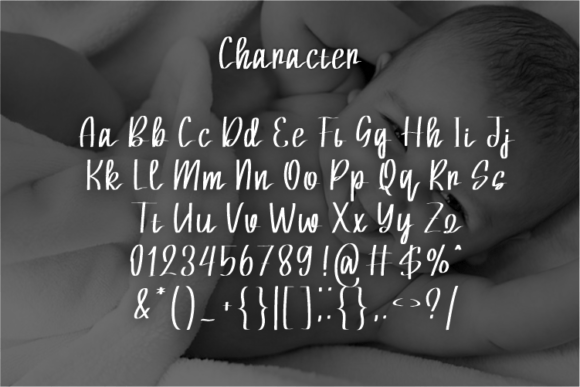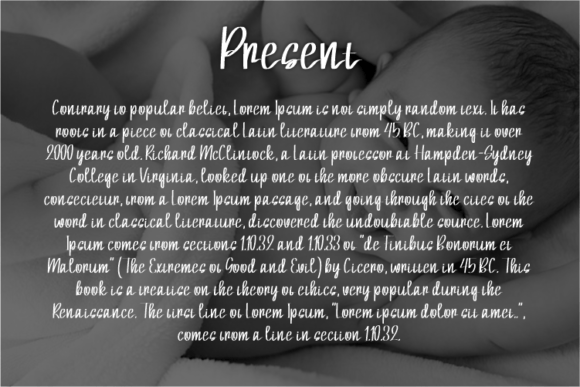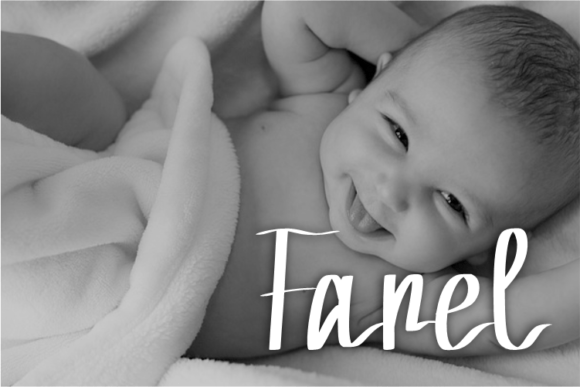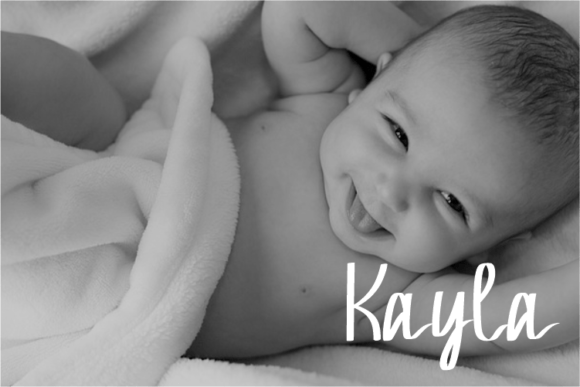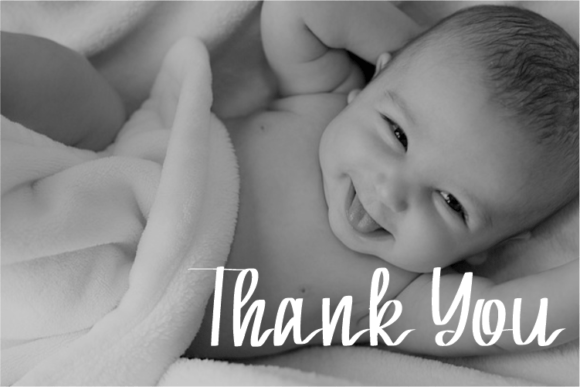
The Perfect Script: Unlocking the Charm of Baby Oh Baby Font
Have you ever found yourself stuck in front of a blank page, struggling to come up with the perfect font to convey your message? You’re not alone. As designers, we’ve all been there – searching for that elusive combination of style and sophistication that elevates our work to the next level. For me, it’s moments like these that I find myself drawn to the world of typography, where a single font can make all the difference.
Enter Baby Oh Baby Font, a script typeface that embodies the perfect blend of simplicity and modernity. With its elegant and luxurious aesthetic, this font is ideal for creating eye-catching logo designs, book and movie titles, fashion brand identities, and more. Whether you’re a seasoned designer or just starting out, Baby Oh Baby Font is a valuable addition to your toolkit, offering a level of versatility and sophistication that’s hard to find elsewhere.
Baby Oh Baby Font Key Features
• Unique Characteristic: The font features a unique, playful design with rounded edges and soft curves, making it suitable for children’s books, nursery decor, and other related applications.
Design Review: Baby Oh Baby Font
Overall, I think the Baby Oh Baby Font is a unique and eye-catching choice for designers looking to create a playful and whimsical feel in their projects. ✨ The font’s rounded edges and soft curves give it a friendly and approachable vibe that’s perfect for children’s books, nursery decor, or other projects aimed at young audiences.
One of the standout features of this font is its versatility. It comes in a range of weights and styles, making it easy to adapt to different design contexts. Whether you need a bold, attention-grabbing headline or a subtle, readable body text, Baby Oh Baby has got you covered. ✨
While Baby Oh Baby Font has many great qualities, there are some limitations to consider.
• ⚠️ The font may not be suitable for projects that require a more formal or professional tone.
• ⚠️ Some users may find the font’s rounded edges and soft curves to be too cutesy or childish.
• ⚠️ The font may not be as readable in smaller font sizes or at a distance.
Overall, I think the Baby Oh Baby Font is a great choice for designers looking to add a playful touch to their projects. While it may not be suitable for every design context, it’s a versatile and eye-catching option that’s sure to delight young audiences.
Tips for Getting the Most Out of Baby Oh Baby Font
For the best results, use the Baby Oh Baby Font in titles, headings, and other text elements where a playful, cursive style is desired. Experiment with different font sizes and colors to create visually appealing designs.
The Baby Oh Baby Font is ideal for:
• Children’s birthday invitations and party decorations.
• Wedding invitations and stationery.
• Food and beverage branding, such as ice cream shops or bakeries.
Alternatives to Baby Oh Baby Font
Great Vibes is a beautiful, elegant script font that is perfect for creating a romantic and whimsical atmosphere. It’s ideal for wedding invitations, baby shower invitations, and other special occasions. Great Vibes is more elegant and refined compared to Baby Oh Baby Font, which is more playful and casual.
Lato is a modern sans-serif font that is highly legible and versatile. It’s perfect for creating a clean and minimalist design. Lato is more modern and sleek compared to Baby Oh Baby Font, which is more cursive and playful. Lato is ideal for use in headings, titles, and body text.